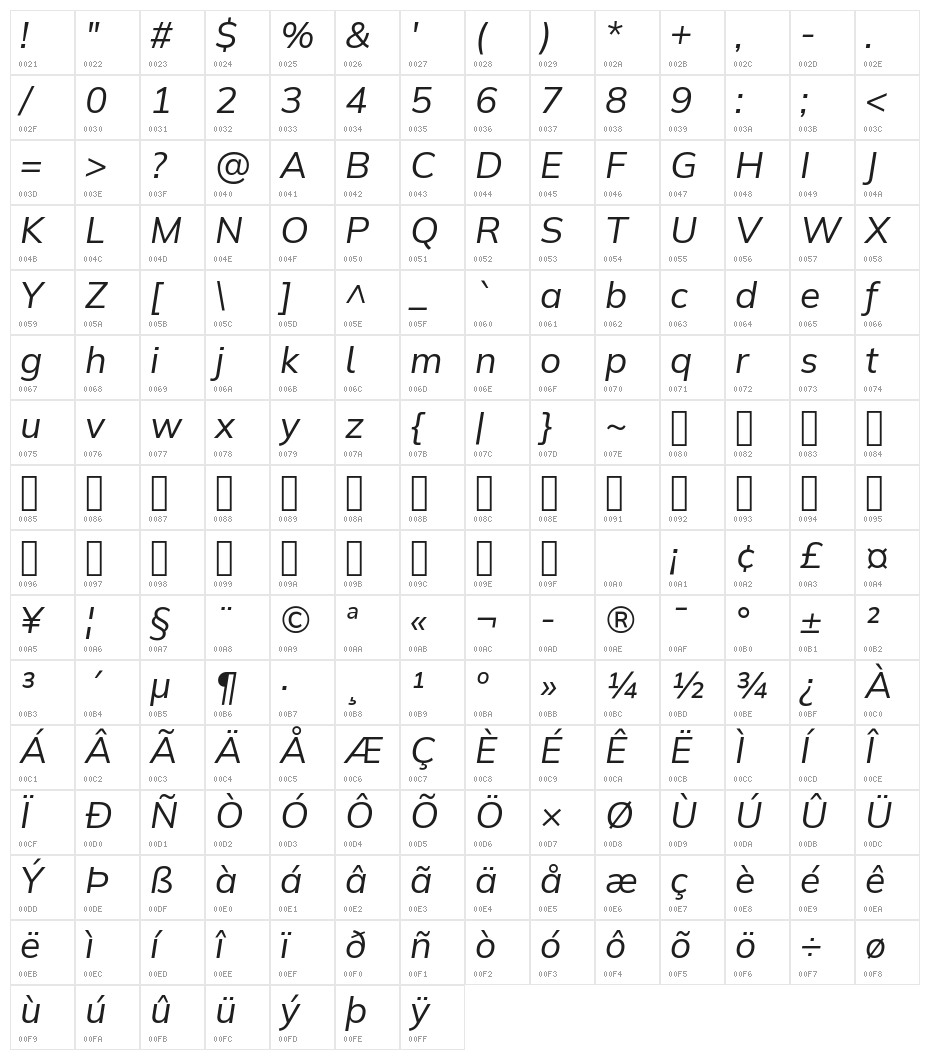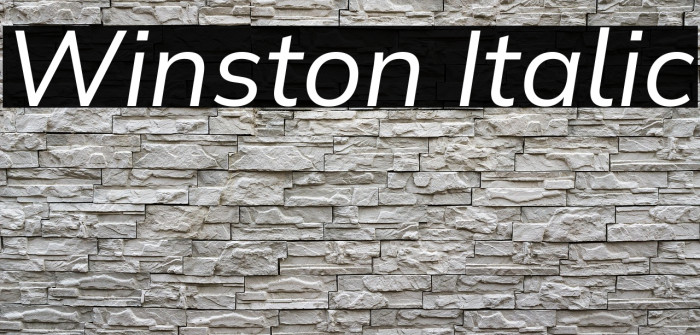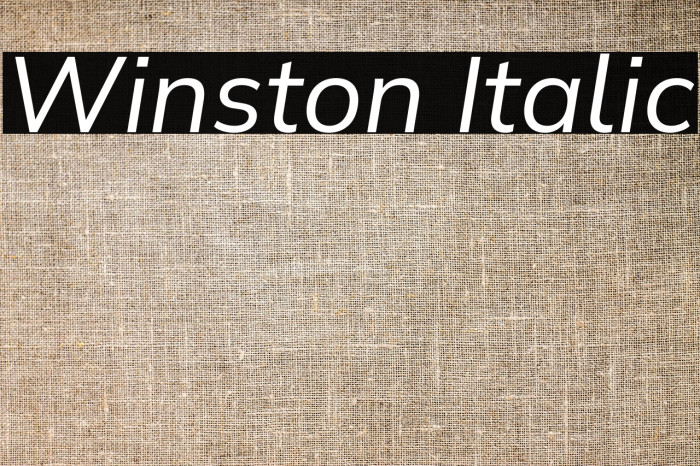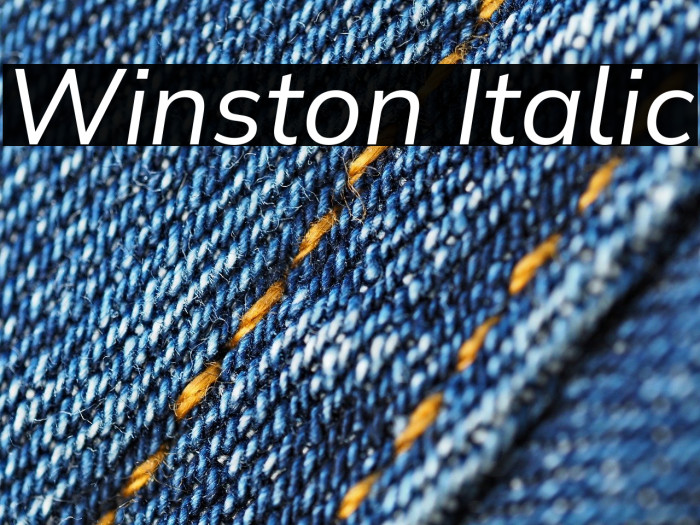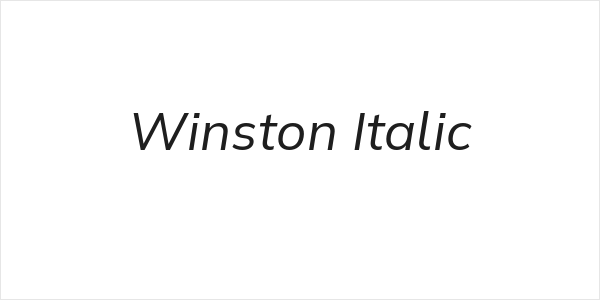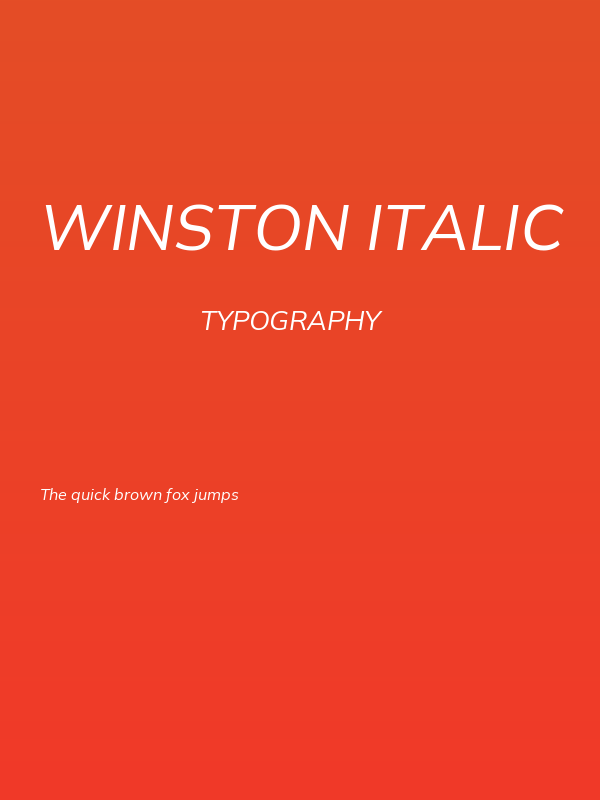
Winston Italic Font
Winston Italic Description
This font features a sleek and modern italic style, characterized by its smooth curves and clean lines. The letters are slightly slanted, giving a dynamic and elegant appearance. Uppercase and lowercase letters maintain a consistent style, with a harmonious balance between thick and thin strokes. The numerals are clear and easy to read, complementing the overall design. Special characters are well-integrated, maintaining the font's aesthetic. This font is versatile, suitable for both digital and print media, offering a professional yet approachable look.